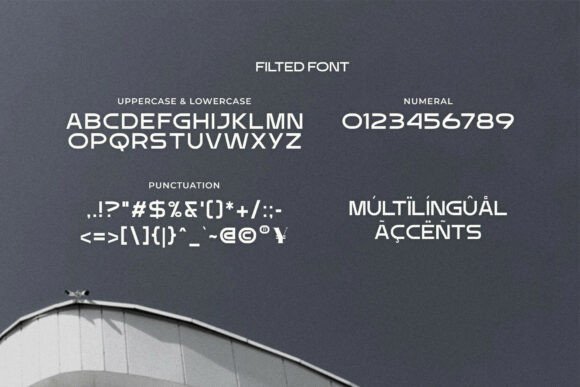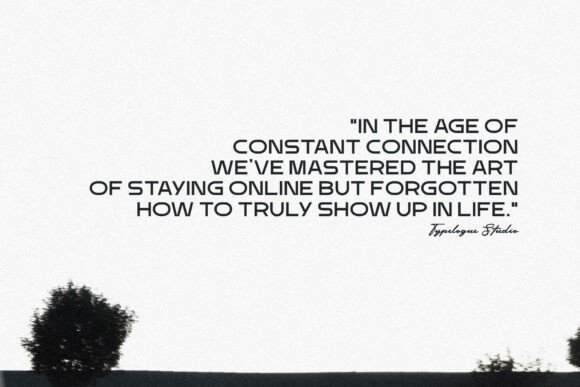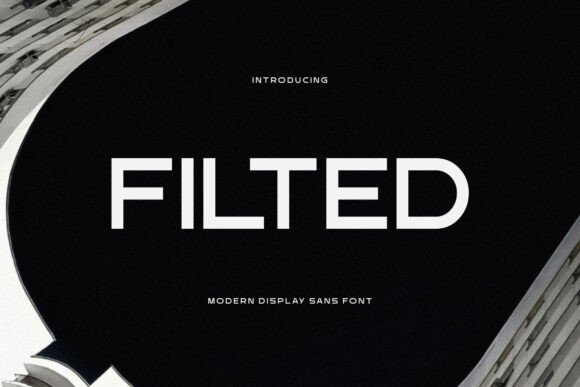
The Filted Font: Elevate Your Designs with Sleek Modernity
In the world of typography, fonts play a crucial role in conveying the tone and aesthetic of a design. For designers and crafters seeking a modern, sophisticated look, the Filted font is an excellent choice. This sleek, sans-serif typeface embodies minimalism and elegance, making it perfect for a wide range of applications, from digital interfaces to striking headlines.
Clean Lines and Geometric Structure
The Filted font boasts clean lines and a geometric structure that give it a fresh, contemporary feel. Its minimalist approach to typography ensures that the font remains versatile and adaptable, allowing it to seamlessly integrate into various design contexts. Whether you’re working on a website, mobile app, or print project, Filted’s streamlined aesthetic is sure to enhance your design.
Balanced Proportions and Clarity
One of the standout features of the Filted font is its balanced proportions and exceptional clarity. These characteristics make it an excellent choice for body text, headlines, and titles, ensuring that your message is conveyed with precision and style. The font’s readability is particularly noteworthy, making it ideal for editorial projects, such as articles, blogs, and publications.
Perfect for Contemporary Designs
The Filted font is tailor-made for modern designs that require a touch of sophistication. Its sleek appearance and geometric structure make it an excellent fit for:
- Digital interfaces: Filted’s clean lines and minimalist aesthetic ensure that it looks great on screens, making it perfect for websites, mobile apps, and software interfaces.
- Branding and advertising: The font’s modern, sophisticated look makes it an excellent choice for logos, taglines, and ad campaigns.
- Editorial projects: Filted’s readability and balanced proportions make it ideal for articles, blogs, and publications.
Why Choose the Filted Font?
With so many fonts available, why choose Filted? Here are just a few reasons why designers and crafters are drawn to this exceptional typeface:
- Versatility: Filted’s minimalist approach makes it adaptable to a wide range of design contexts.
- Readability: The font’s balanced proportions and clarity ensure that it remains easy to read, even at small sizes.
- Modern aesthetic: Filted’s sleek, geometric structure gives it a fresh, contemporary feel that’s perfect for modern designs.
Tips for Using the Filted Font
To get the most out of the Filted font, consider the following tips:
- Pair with complementary fonts: Combine Filted with other fonts to create visual interest and add depth to your design.
- Experiment with font sizes: Filted’s readability makes it suitable for use at a range of font sizes, from headings to body text.
- Pay attention to line spacing: Ensure that your text is easy to read by using sufficient line spacing.
The Filted font is a versatile, modern sans-serif typeface that’s perfect for designers and crafters seeking a sophisticated look. Its clean lines, geometric structure, and balanced proportions make it an excellent choice for a wide range of applications, from digital interfaces to editorial projects. With its exceptional readability and adaptability, Filted is sure to elevate your designs and help you achieve your creative goals.